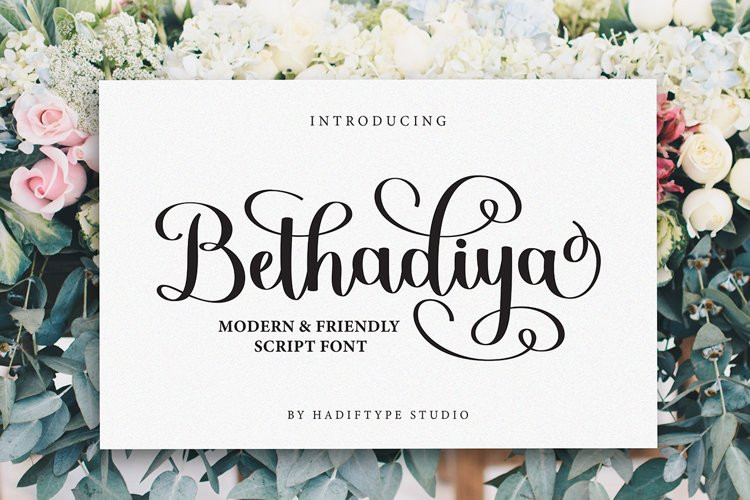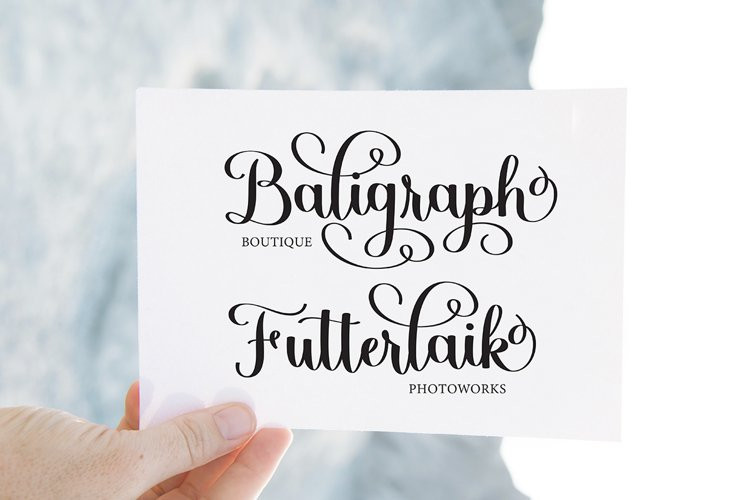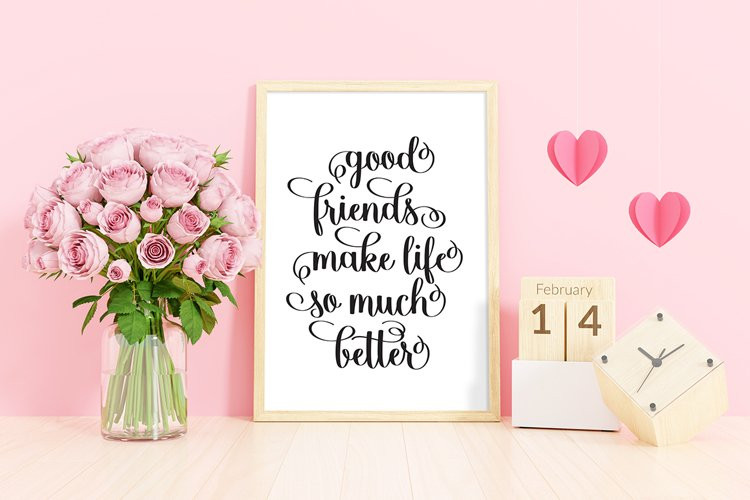
Bethadiya Font
Bethadiya FontBethadiya is an organic and beautiful decorative font, featuring lovely ornaments. No matter the topic, this font will be an incredibly asset to your fonts’ library, as it has the potential to elevate any creation.
Bethadiya is PUA encoded which means you can access all of the glyphs and swashes with ease!